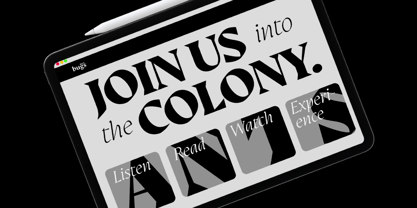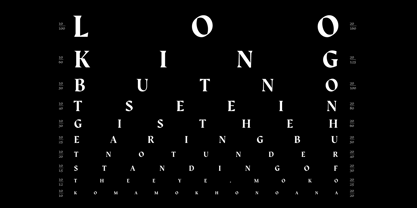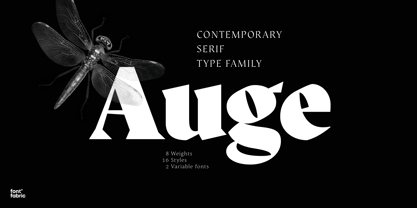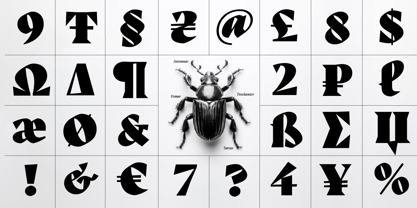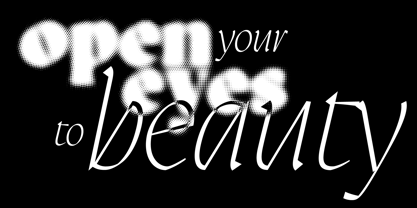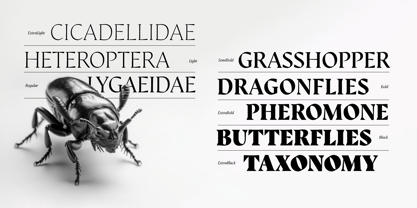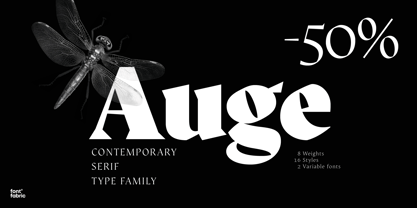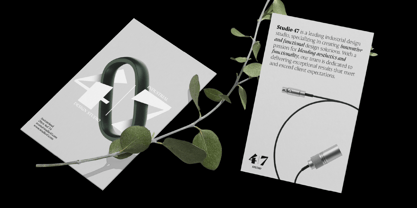
Auge
von Fontfabric
Die Schriftfamilie Auge wurde von Vika Usmanova, Nikolay Petroussenko, Plamen Motev entworfen und von Fontfabric veröffentlicht. Auge enthält 18 Stile und Familienpaketoptionen.
Auge Font Family is a contemporary serif type that comes in 8 weights and matching true italics. Initialized by Nikolay Petroussenko back in 2017 for Fontfabric, it has gradually modified and matured together with the type direction of Plamen Motev and later Viktoria Usmanova.
Auge means an “eye” in German and brings into our sight the micro world of insects. Their intricate anatomy inspires the severe structure, wedged serifs, and sharp details of the letters and seeks to open up about the often underestimated beauty of those, unfortunately, declining species, whose importance to the world is irreplaceable.